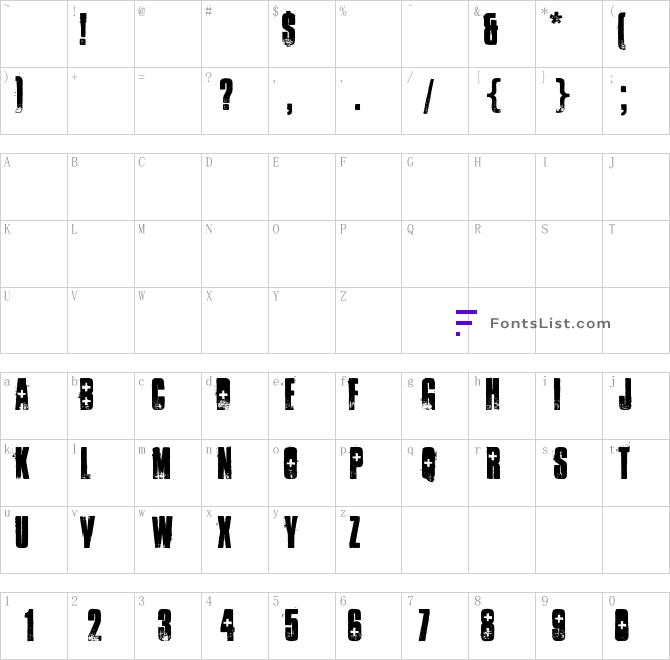
- Font Name:ambulance shotgun
ambulance-shotgun.ttf is a very beautiful artistic font, ambulance-shotgun.ttf is widely used in the design and printing of various books and pictures,ambulance-shotgun.ttf has a strong visual impact,ambulance-shotgun.ttf is a commonly used font in newspapers, magazines and books, and is used in posters, e-commerce Poster design, store design, logo design, font design and other fields.ambulance-shotgun.